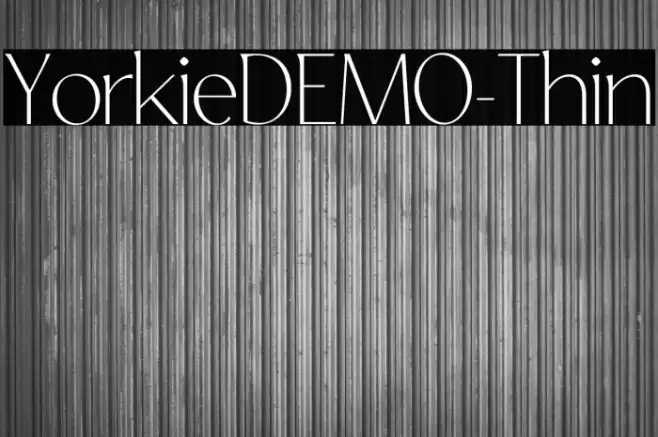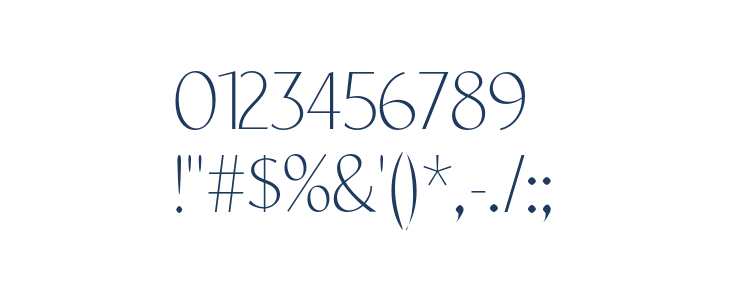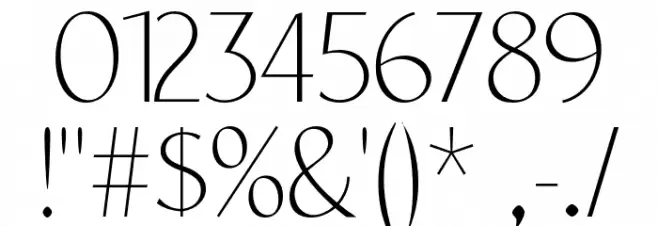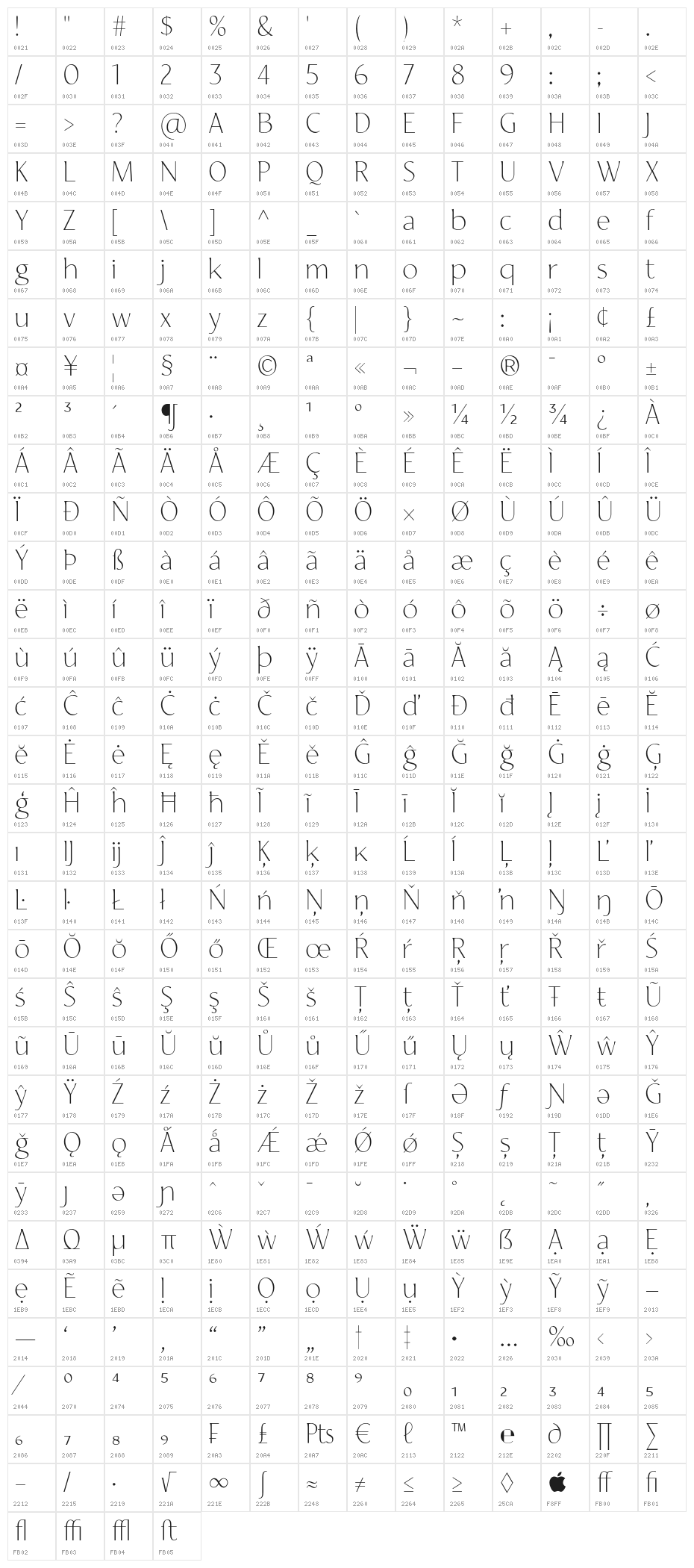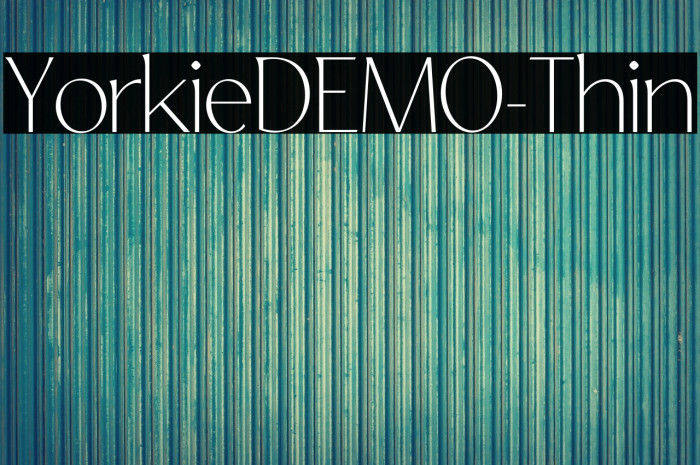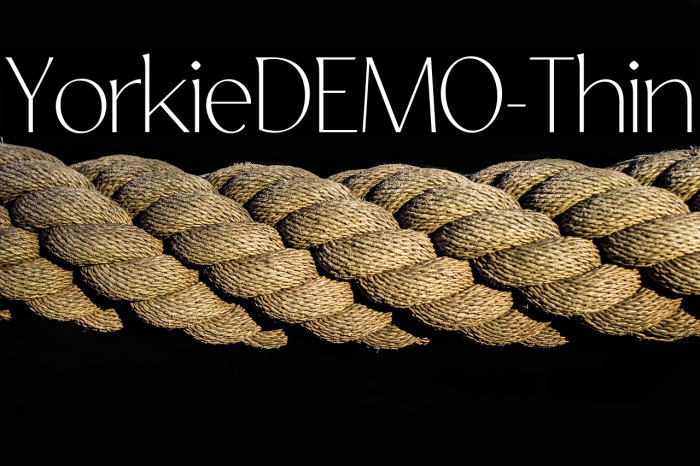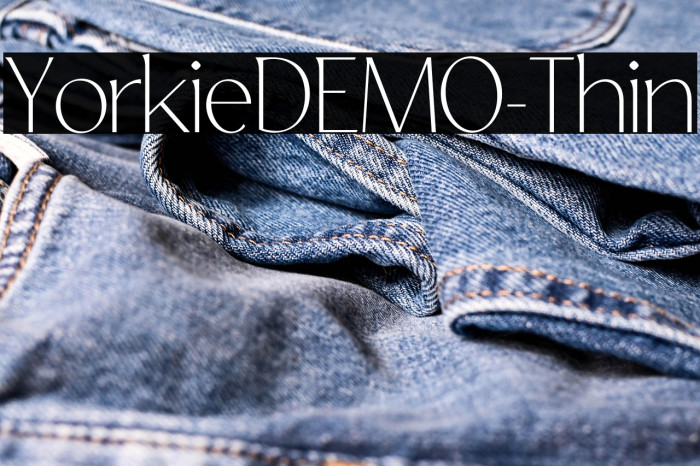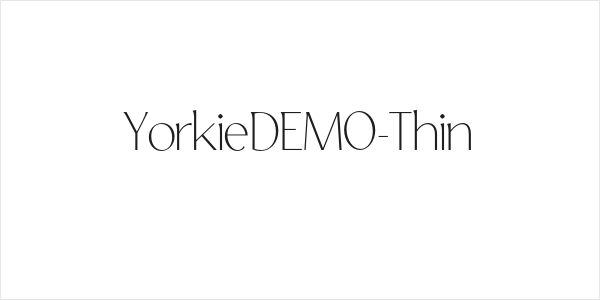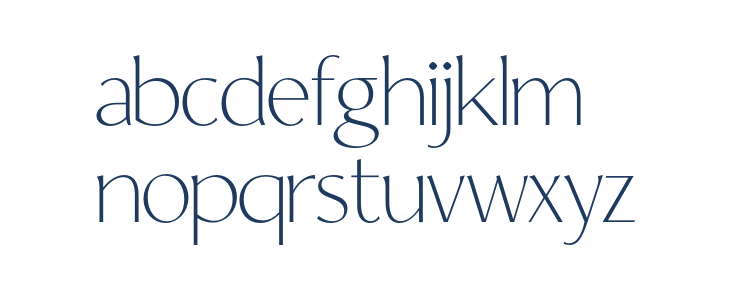
YorkieDEMO-Thin Font
YorkieDEMO-Thin Description
This font features an elegant and modern design with thin, elongated letterforms that convey a sense of sophistication and style. The uppercase letters are tall and sleek, while the lowercase letters maintain a consistent flow with gentle curves and minimalistic strokes. The numerals are clean and align well with the overall aesthetic, providing a harmonious balance. Special characters are thoughtfully designed to complement the alphabet, ensuring versatility across various applications. The font's thin weight and high contrast between strokes make it ideal for projects that require a refined and contemporary look.
A modern, elegant font with thin, elongated letterforms and high contrast strokes from Uncategorized fonts.